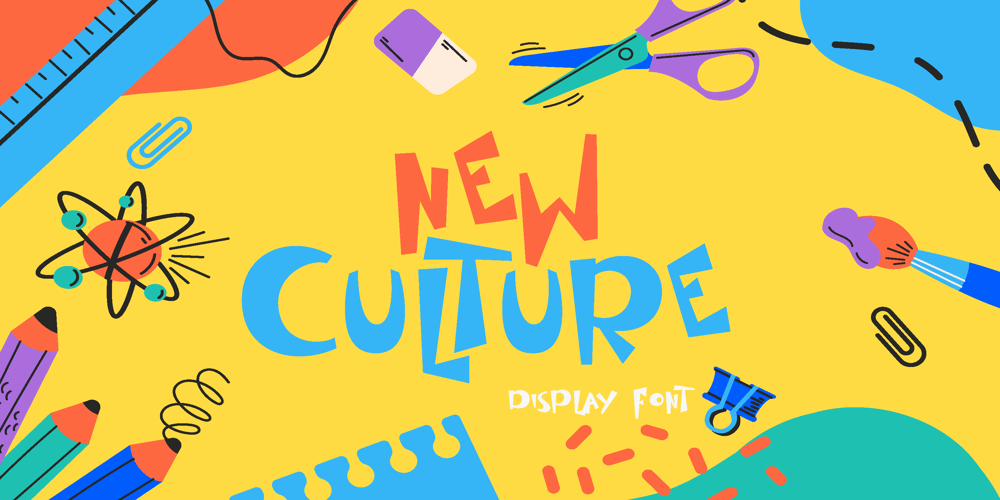
New Culture
New Culture font
New Culture Font Family was designed by Ariefr Munandar and published by dotHK Studio. New Culture contains 1 styles and family package options. New Culture Display Font comes with masculine themes. It matches applies in some designs such as the logotype, brand, packaging, quotes, music poster, t-shirt, cover book, and more custom design. The features uppercase, lowercase, numeral, punctuation & symbol, multilingual support.New Culture Display Font This font has been equipped with OpenType features and has many glyphs. and of course by having many of these glyphs will be able to choose the letters according to your liking, lots of variations and options for each letter, so you can customize your design choices and also have other languages supported.This font is perfect for use with programs that support OpenType features like Adobe Photoshop Cs / Adobe Photoshop CC, Adobe Illustrator CS / Adobe Illustrator CC, Adobe Indesign, and Corel Draw, and many more programs that support OpenType, and I’ve also included a special alternative so you can use any program, this font can be used by everyone.